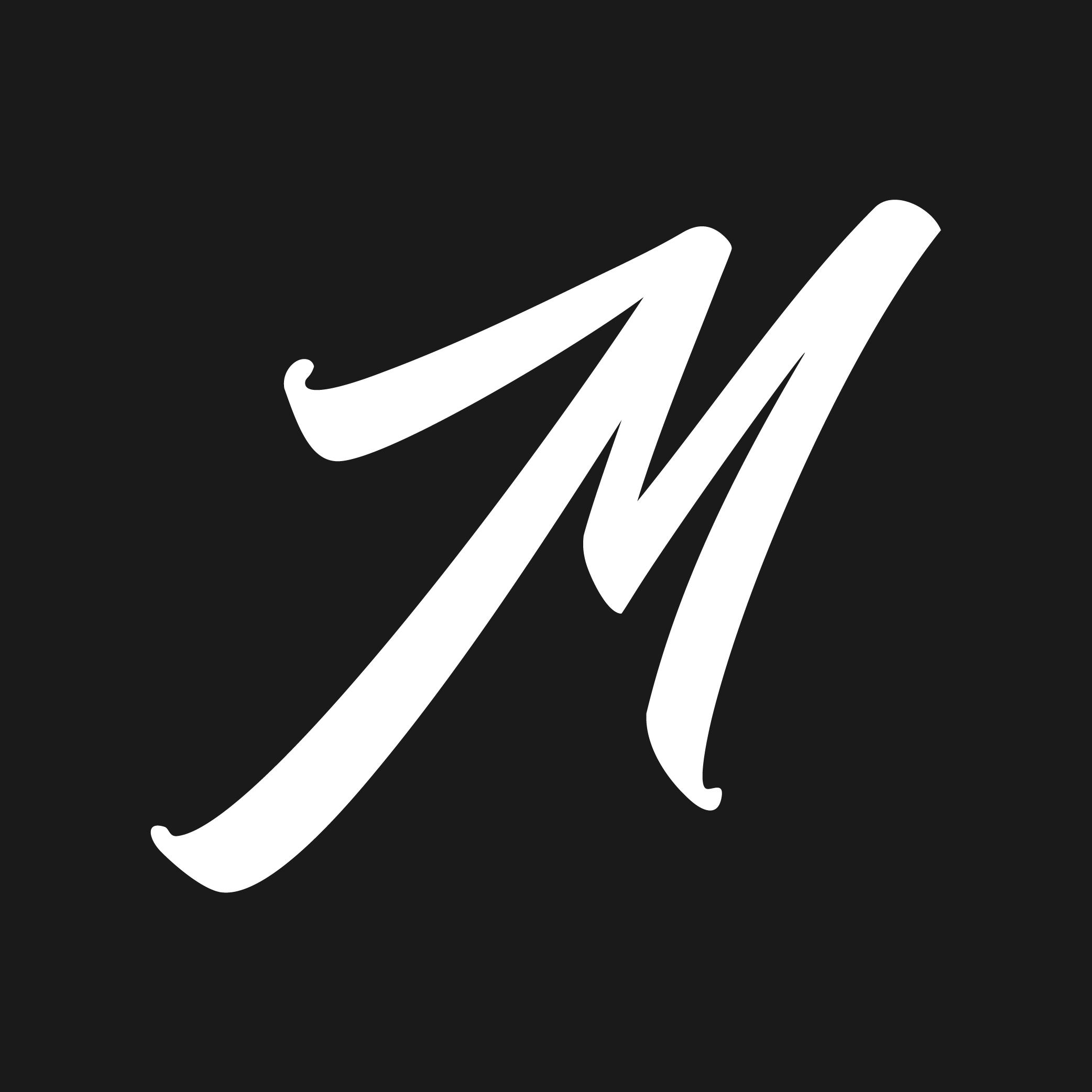
Rollblast Font Description
Rollblast is a stunning display font. It comes in two styles: Rollblast SVG and Rollblast solid. Both styles feature a unique hand brush and textured feel that will make your designs stand out! It will elevate a wide range of design projects to the highest level, be it branding, headings, wedding designs, invitations, signatures, logos, labels, and much more!